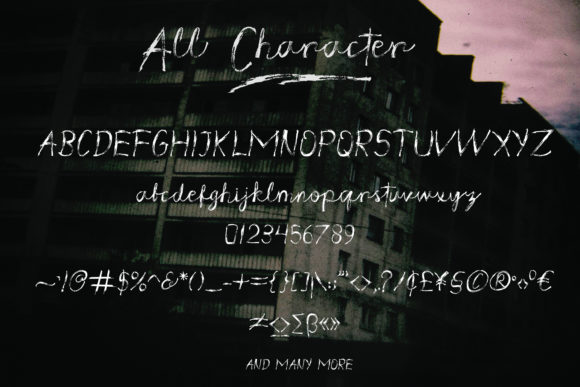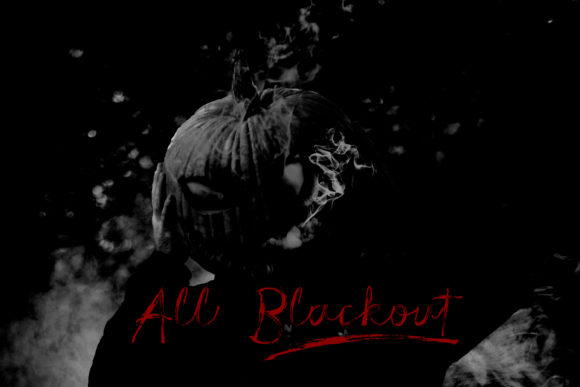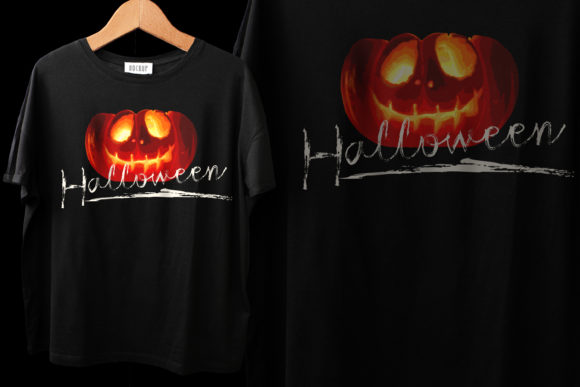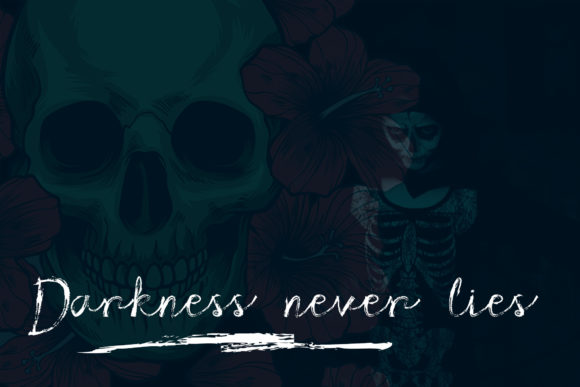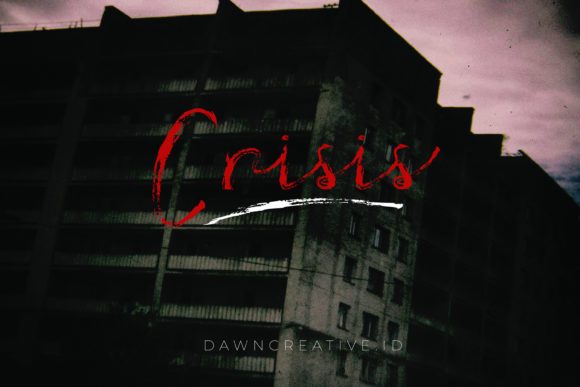
Crisis Font: The Perfect Handwritten Font for DIY Projects
In the world of typography, fonts play a crucial role in conveying the tone and personality of a project. For designers and crafters, finding the right font can make all the difference in bringing a DIY project to life. If you’re looking for a unique and modern handwritten font that exudes an endearing and authentic feel, look no further than the Crisis Font.
The Story Behind Crisis Font
Crisis Font is the result of a stunning pairing of a brush pen and pencil, carefully crafted to create a one-of-a-kind handwritten font. The combination of these two traditional writing tools gives Crisis Font its distinct look, which is both modern and nostalgic. The font’s creator aimed to capture the imperfections and uniqueness of handwriting, making it perfect for DIY projects that require a personal touch.
What Makes Crisis Font So Special?
So, what sets Crisis Font apart from other handwritten fonts? Here are a few key features that make it a standout:
- Authentic look: Crisis Font boasts an incredibly authentic look, thanks to its brush pen and pencil origins. The font’s strokes are imperfect, yet charming, giving it a relatable and human feel.
- Endearing personality: The font’s unique blend of bold and delicate strokes creates an endearing personality that’s hard to find in digital fonts.
- Modern and unique: Crisis Font is a breath of fresh air in the world of typography. Its modern and unique design makes it perfect for designers and crafters looking to add a touch of personality to their projects.
- Versatile: Whether you’re working on a DIY craft project, a blog post, or a social media graphic, Crisis Font is versatile enough to fit any creative endeavor.
How to Use Crisis Font in Your DIY Projects
Now that you’re excited about Crisis Font, let’s explore some ways to incorporate it into your DIY projects:
- Crafting: Use Crisis Font to add a personal touch to your handmade crafts, such as journals, planners, or gift tags.
- Blogging: Add a touch of personality to your blog posts with Crisis Font. It’s perfect for headings, titles, or even entire paragraphs.
- Social Media Graphics: Make your social media graphics stand out with Crisis Font. Use it to create eye-catching titles, quotes, or captions.
- Stationery: Create custom stationery, such as greeting cards, invitations, or letterheads, with Crisis Font.
Tips for Working with Crisis Font
To get the most out of Crisis Font, here are some tips to keep in mind:
- Experiment with sizes: Crisis Font looks great in various sizes, from small and delicate to large and bold.
- Pair with other fonts: Combine Crisis Font with other fonts to create a unique and visually appealing typography.
- Use it sparingly: While Crisis Font is beautiful, it can be overwhelming if used excessively. Use it sparingly to add emphasis and personality to your project.
| Font Name | Crisis Font |
| Author | DawnCreative.id |
In conclusion, Crisis Font is a one-of-a-kind handwritten font that’s perfect for designers and crafters looking to add a personal touch to their DIY projects. Its unique blend of brush pen and pencil strokes creates an authentic and endearing look that’s sure to capture attention. With its versatility and modern design, Crisis Font is an excellent choice for anyone looking to bring their creative projects to life.
Get Ready to Fall in Love with Crisis Font!